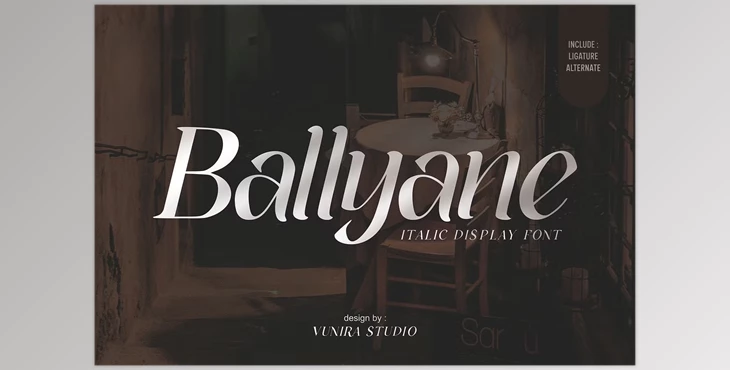
Ballyane - Italic Display Font:
Introducing Ballyane, an elegant italic display font imbued with calligraphic flair. Perfect for enhancing invitations, greeting cards, branding materials, business cards, quotes, posters, and more!
This font offers a plethora of alternative characters, accessible via various OpenType features such as Stylistic Sets, Stylistic Alternates, Contextual Alternates, SWASH, and Ligatures. Compatible with OpenType savvy software including Adobe Illustrator, Adobe InDesign, Adobe Photoshop, Corel Draw X version, and Microsoft Word. Additionally, Ballyane is PUA encoded, ensuring easy access to all alternate characters without the need for additional design software.
Some great features of Ballyane - Italic Display Font:
- Abundant glyphs
- Alternates and ligatures
- Punctuation marks
- Multilingual support for versatility.